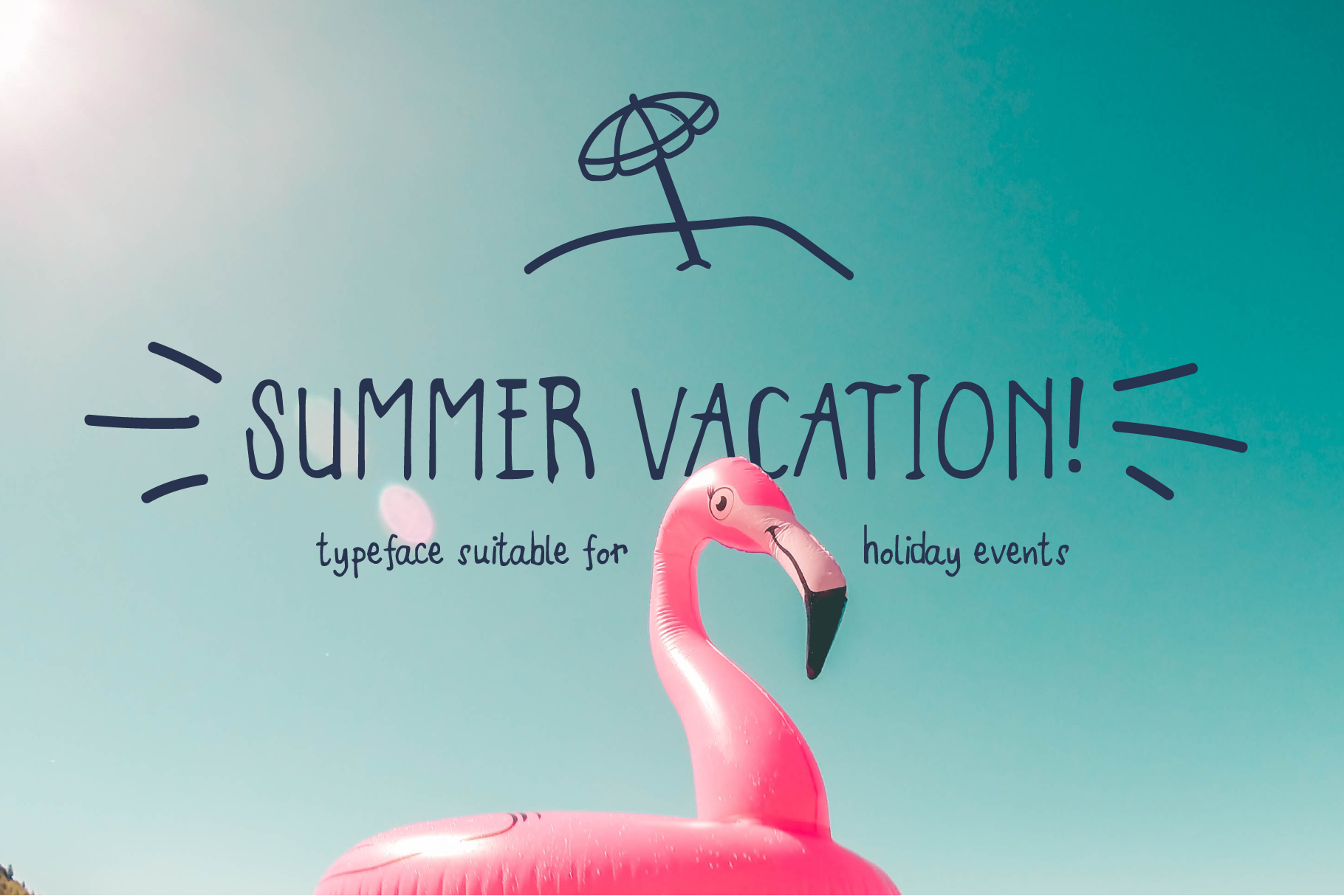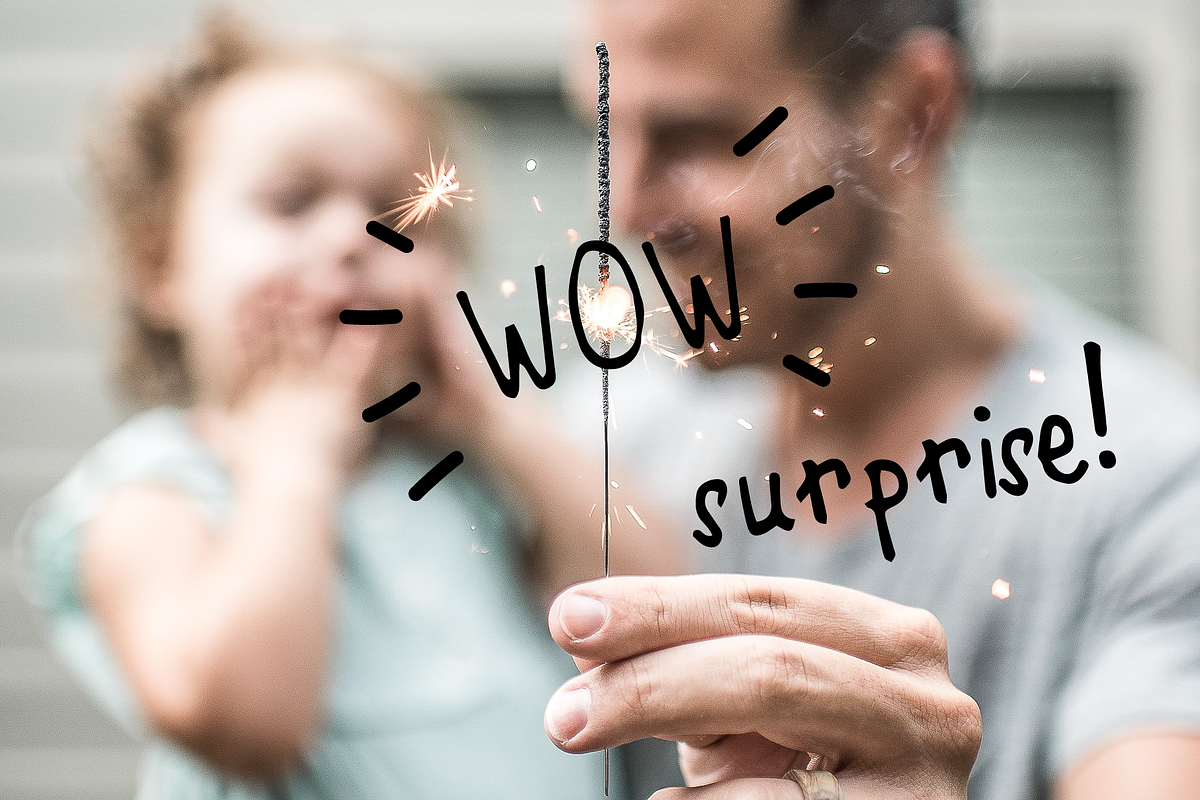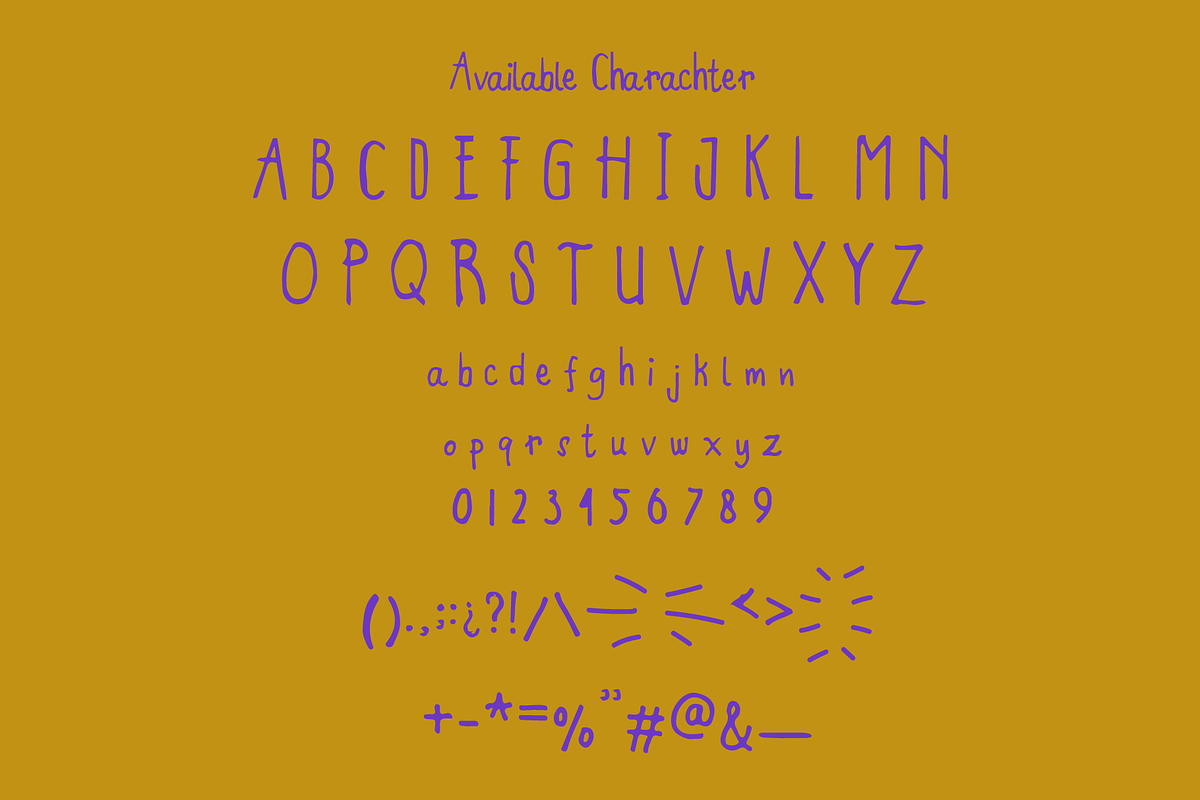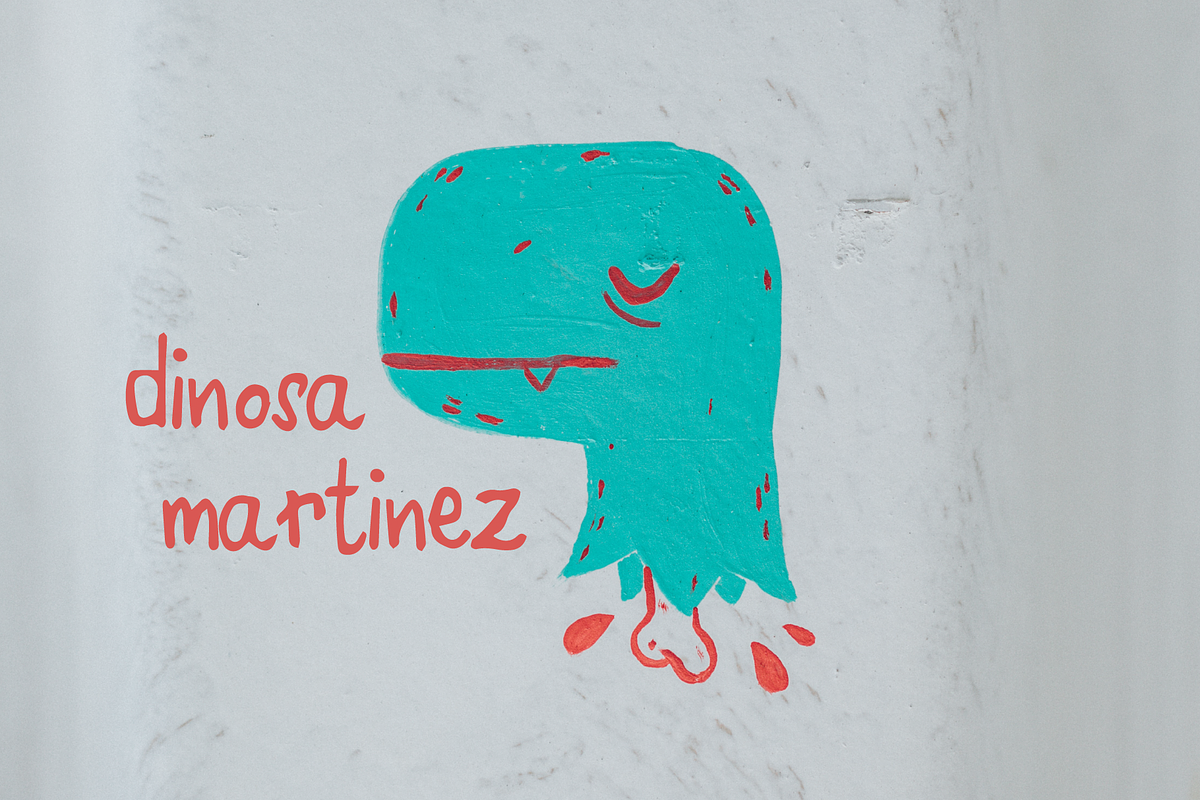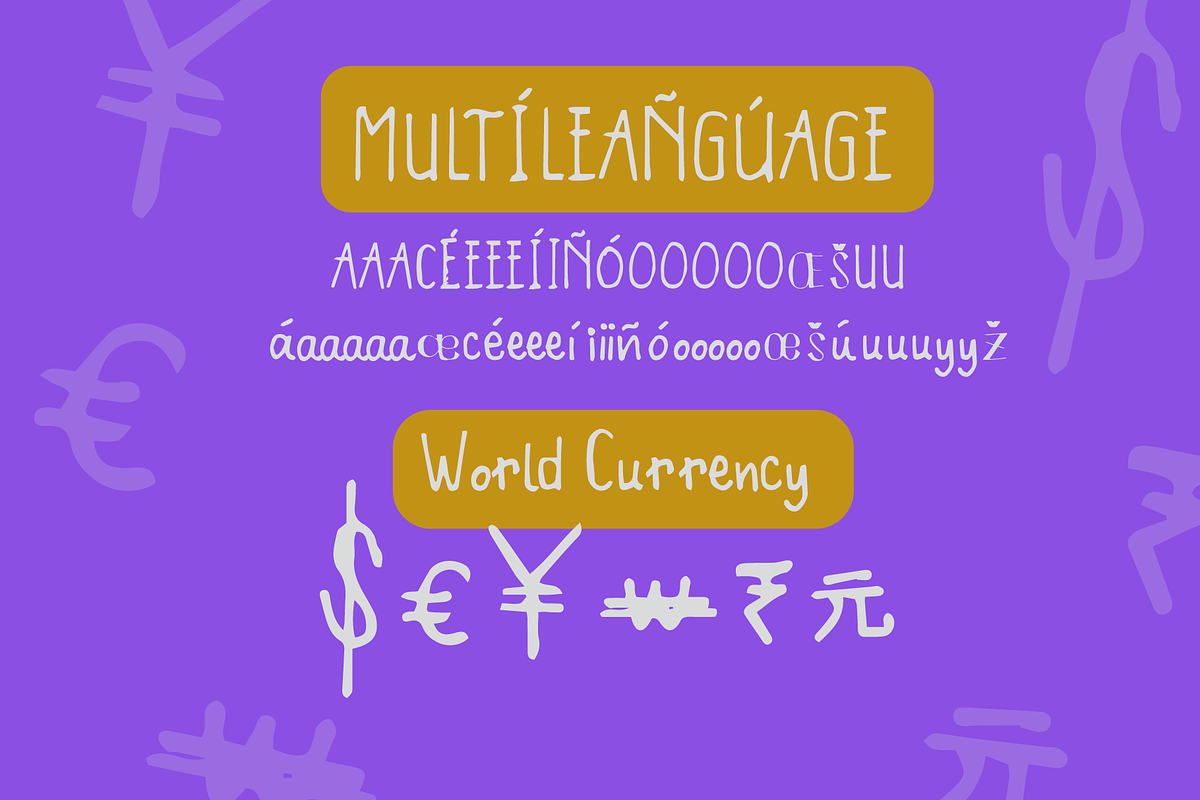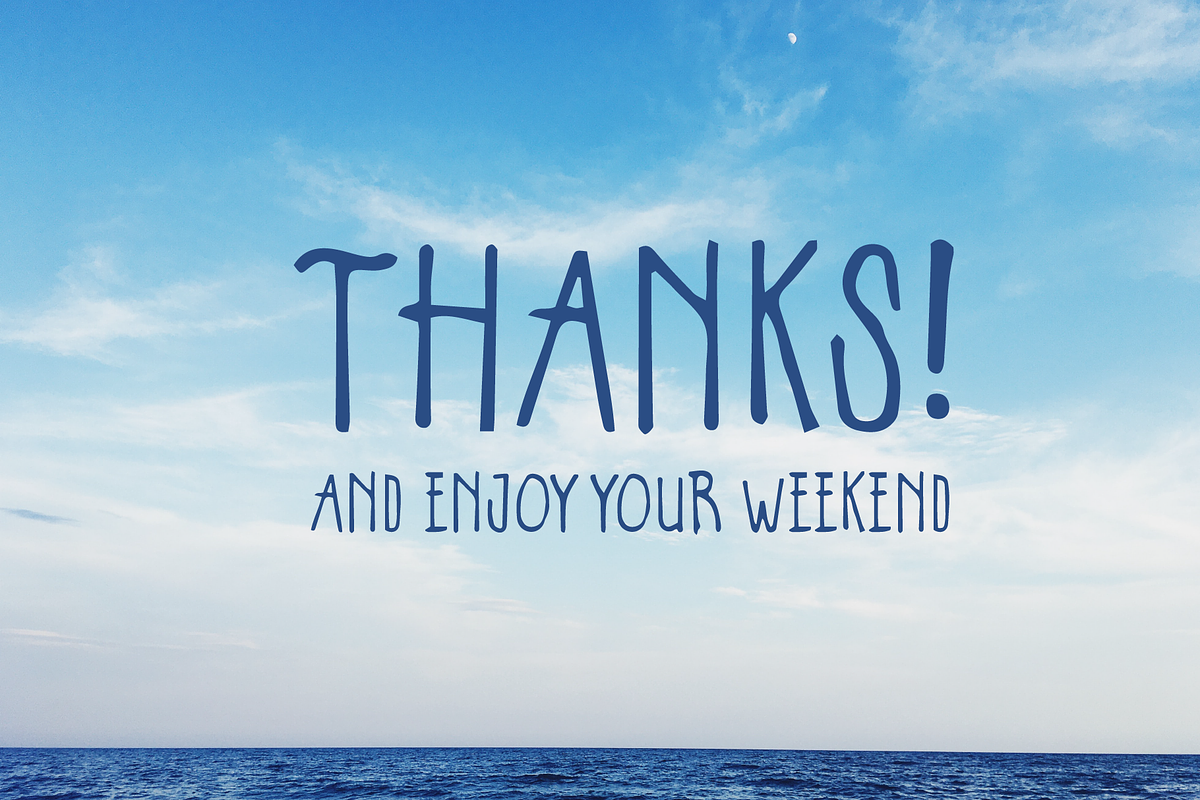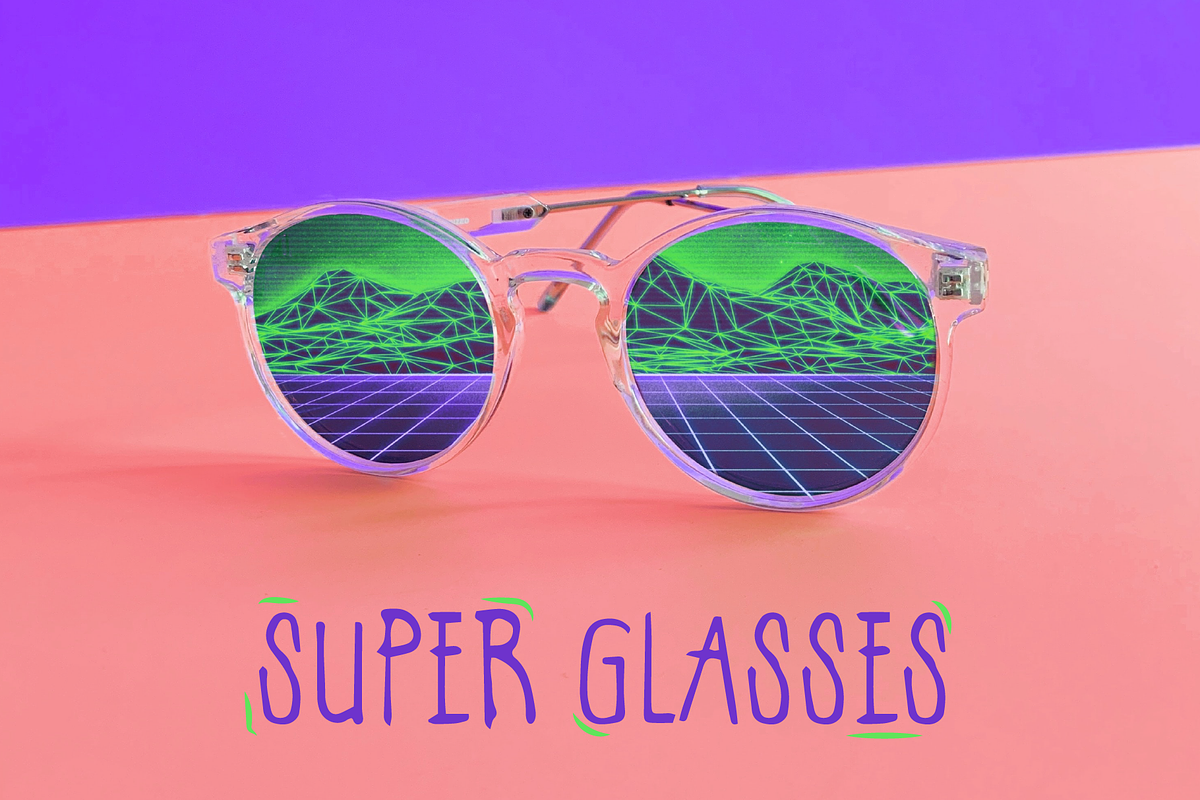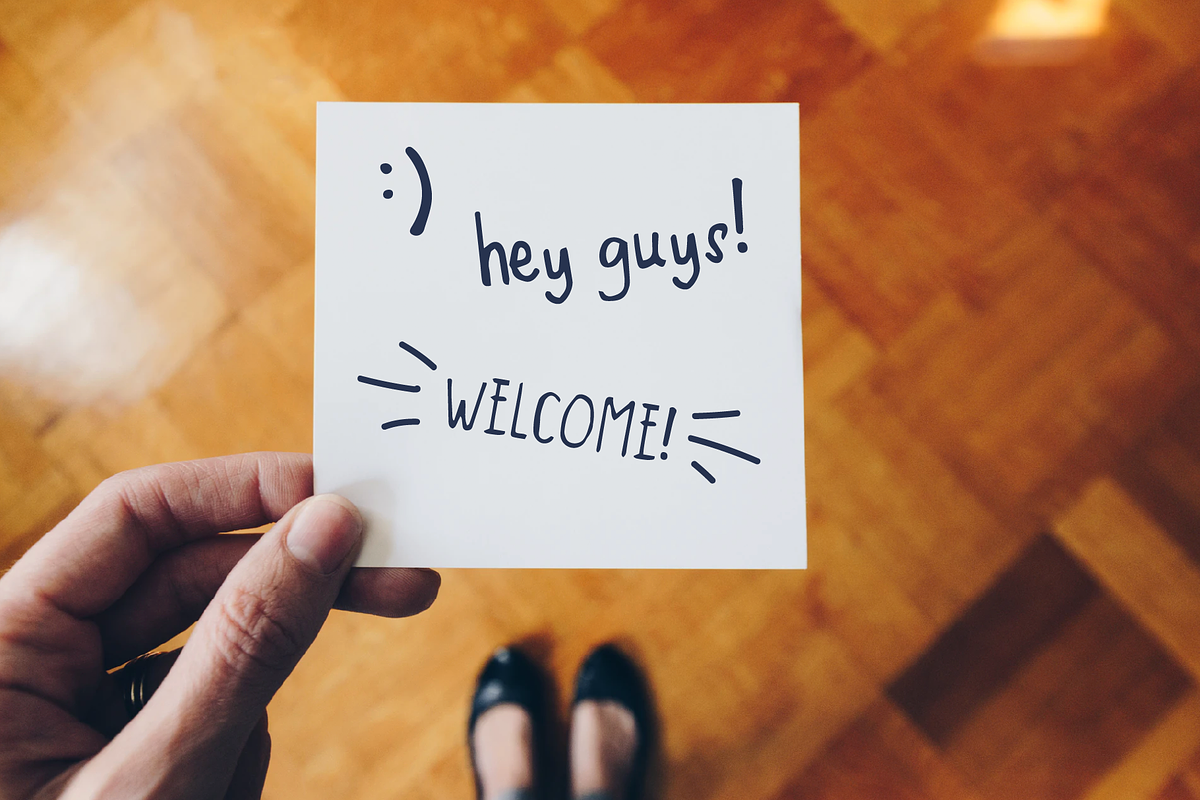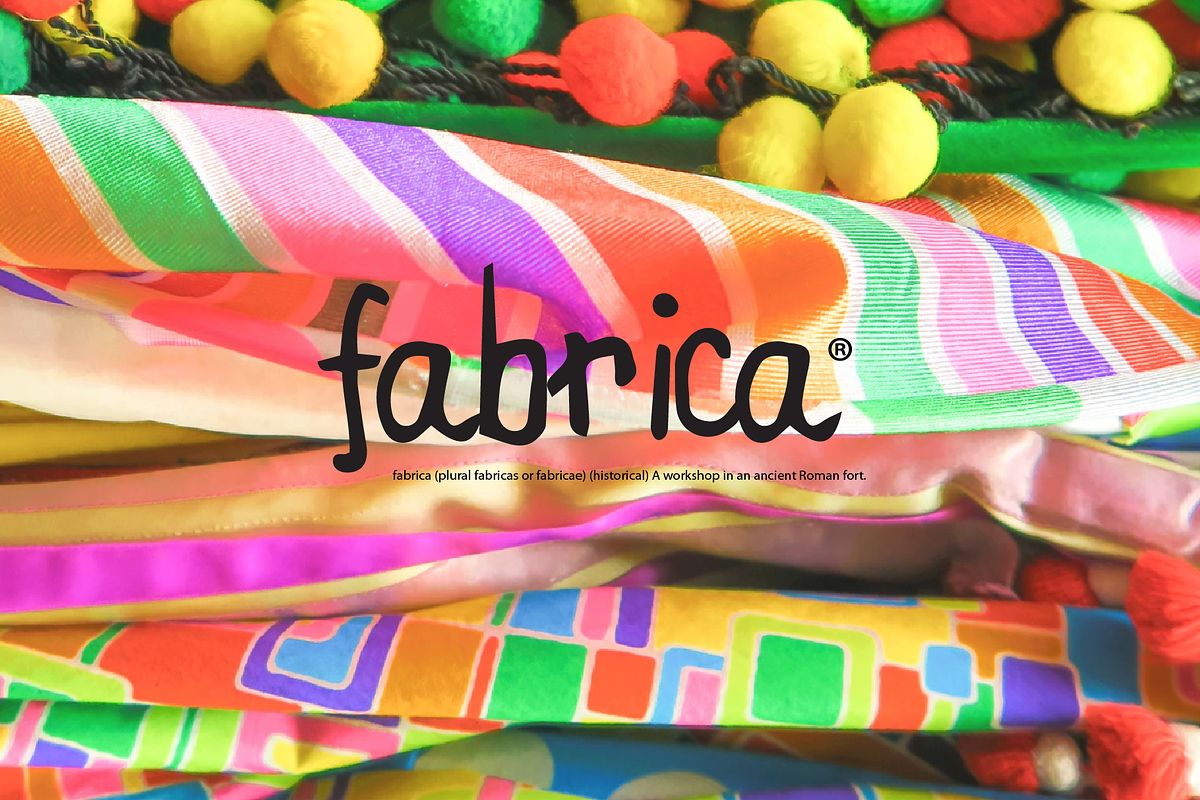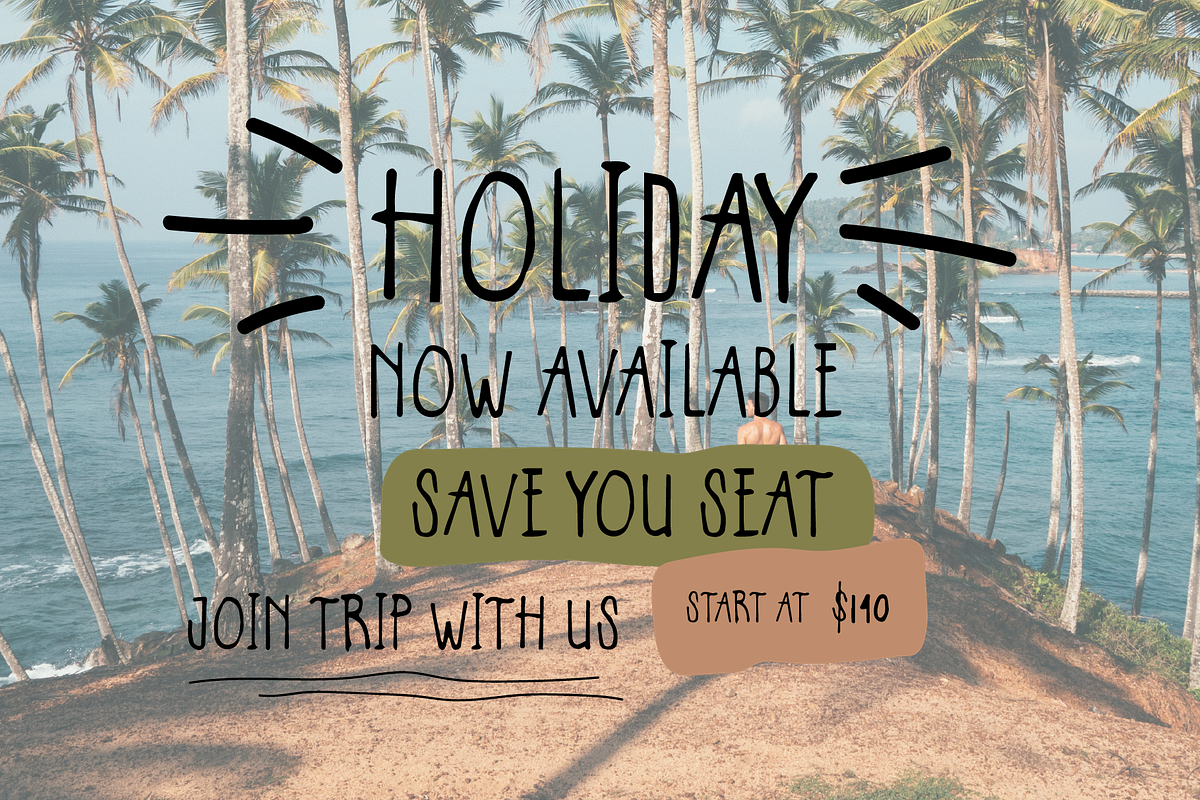
Summer Vacation! - Display Typeface
Summer Vacation! is inspired by the high spirit of the summer where it's all about the sunshine and lemonade. With a wavy font that represents the beach, it is suitable for projects, events, or parties with the theme of summer and vacation.
Summer Vacation! Font gives a gorgeous feel to a variety of branding projects, logos, wedding designs, social media posts, advertisements, and so much more. Let your imagination run free!
- Unique
Instruction :
- effect 1 : { }
- effect 2 : [ ]